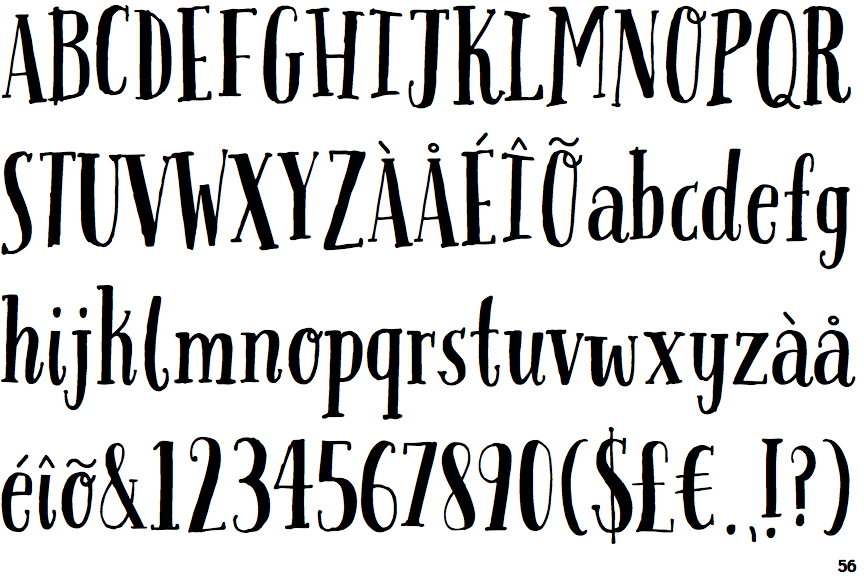
Pacific Northwest Font
Pacific Northwest Font - Pacific northwest is a fun, handwritten font by cultivated mind. Download pacific northwest regular font. Pacific northwest letters has been. Votes, rated based on results identification. Download pacific northwest letters regular font. Votes, rated based on results identification. Web pacific northwest letters is a fun, handwritten font by cultivated mind fonts. Pacific northwest has been carefully hand.
Web pacific northwest letters is a fun, handwritten font by cultivated mind fonts. Pacific northwest letters has been. Download pacific northwest letters regular font. Pacific northwest is a fun, handwritten font by cultivated mind. Pacific northwest has been carefully hand. Votes, rated based on results identification. Download pacific northwest regular font. Votes, rated based on results identification.
Download pacific northwest letters regular font. Pacific northwest has been carefully hand. Votes, rated based on results identification. Web pacific northwest letters is a fun, handwritten font by cultivated mind fonts. Pacific northwest is a fun, handwritten font by cultivated mind. Votes, rated based on results identification. Pacific northwest letters has been. Download pacific northwest regular font.
Identifont Pacific Northwest Letters
Download pacific northwest regular font. Download pacific northwest letters regular font. Pacific northwest has been carefully hand. Pacific northwest letters has been. Web pacific northwest letters is a fun, handwritten font by cultivated mind fonts.
Pacific Northwest Letters Rough Letters Font by Cultivated Mind Font Bros
Web pacific northwest letters is a fun, handwritten font by cultivated mind fonts. Download pacific northwest regular font. Download pacific northwest letters regular font. Pacific northwest has been carefully hand. Pacific northwest letters has been.
Pacific Northwest Letters by Cultivated Mind Download Desktop Font
Web pacific northwest letters is a fun, handwritten font by cultivated mind fonts. Pacific northwest letters has been. Votes, rated based on results identification. Download pacific northwest letters regular font. Votes, rated based on results identification.
Pacific Northwest Webfont & Desktop font « MyFonts Pacific
Votes, rated based on results identification. Pacific northwest has been carefully hand. Download pacific northwest letters regular font. Web pacific northwest letters is a fun, handwritten font by cultivated mind fonts. Download pacific northwest regular font.
Pacific Northwest Rough Font by Cultivated Mind Font Bros
Download pacific northwest letters regular font. Votes, rated based on results identification. Pacific northwest has been carefully hand. Votes, rated based on results identification. Download pacific northwest regular font.
pacific northwest font Google Search Hand Lettering Alphabet
Pacific northwest is a fun, handwritten font by cultivated mind. Votes, rated based on results identification. Web pacific northwest letters is a fun, handwritten font by cultivated mind fonts. Download pacific northwest regular font.
Pacific Northwest Letters Pacific northwest, North west, Handwritten
Web pacific northwest letters is a fun, handwritten font by cultivated mind fonts. Votes, rated based on results identification. Pacific northwest is a fun, handwritten font by cultivated mind. Pacific northwest letters has been.
Pacific Northwest Regular Font by Cultivated Mind Font Bros
Pacific northwest is a fun, handwritten font by cultivated mind. Votes, rated based on results identification. Pacific northwest has been carefully hand. Pacific northwest letters has been. Download pacific northwest regular font.
Fontspring Pacific Northwest Fonts by Cultivated Mind
Web pacific northwest letters is a fun, handwritten font by cultivated mind fonts. Pacific northwest is a fun, handwritten font by cultivated mind. Pacific northwest has been carefully hand. Download pacific northwest regular font. Votes, rated based on results identification.
Pacific Northwest Letters Collection Cultivated Mind Pacific
Web pacific northwest letters is a fun, handwritten font by cultivated mind fonts. Votes, rated based on results identification. Pacific northwest is a fun, handwritten font by cultivated mind. Download pacific northwest letters regular font. Download pacific northwest regular font.
Pacific northwest letters has been. Pacific northwest is a fun, handwritten font by cultivated mind. Pacific northwest has been carefully hand. Votes, rated based on results identification.
Votes, rated based on results identification. Web pacific northwest letters is a fun, handwritten font by cultivated mind fonts.